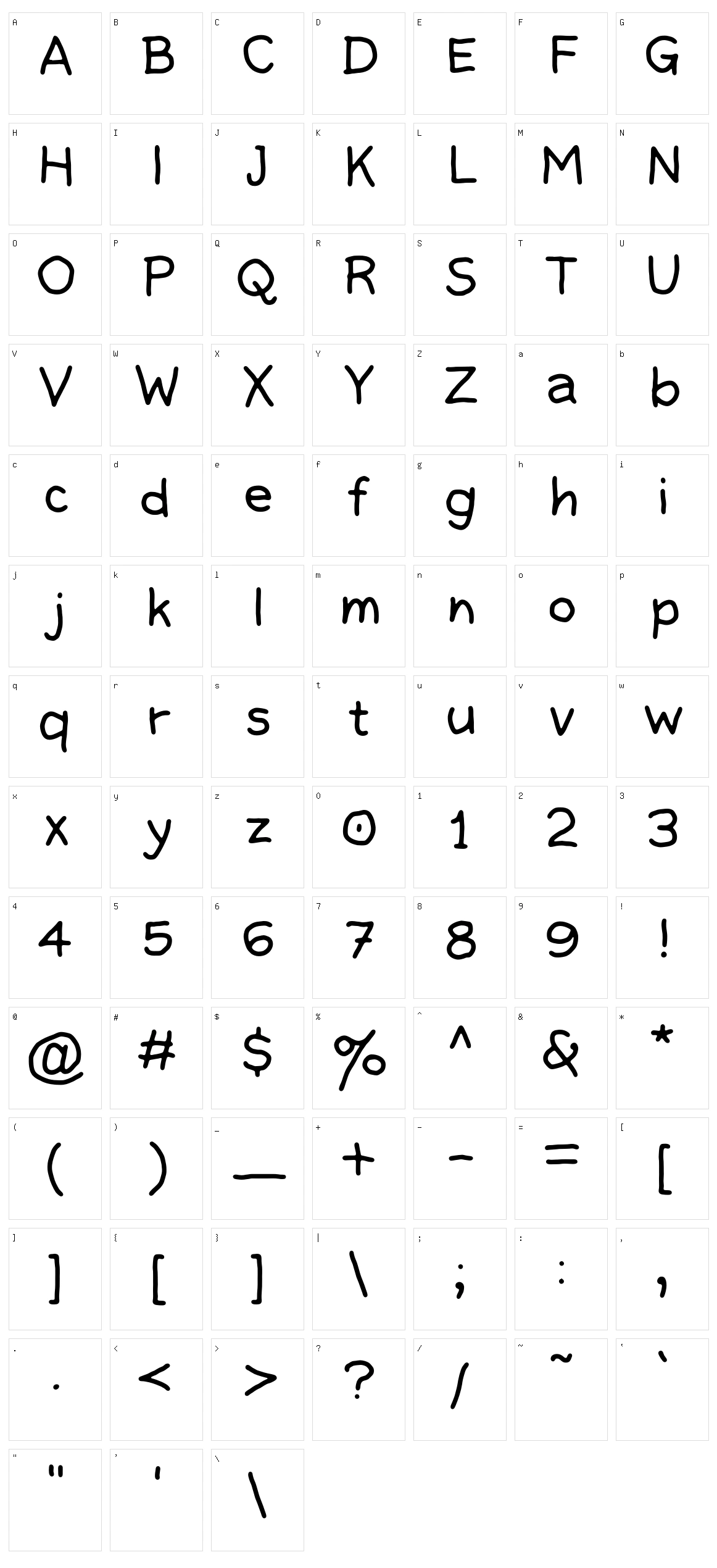
GUACAMOLE QUICKSTEP
A Font by S. John Ross
In a world full of friendly hand-drawn fonts, this is one of mine. This would be nice for character-sheet graphics; I might use it for that soon. What might you use it for? GUACAMOLE QUICKSTEP has my usual full-U.S.-keyboard set, but also a lot of extended characters this time; maybe that'll give it good luck abroad. It's huggable; it deserves to travel well. Enjoy!